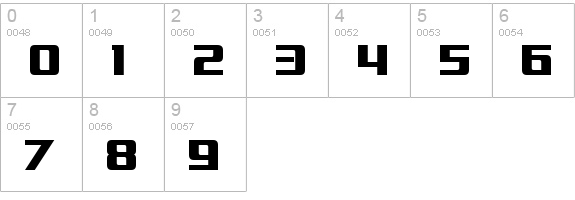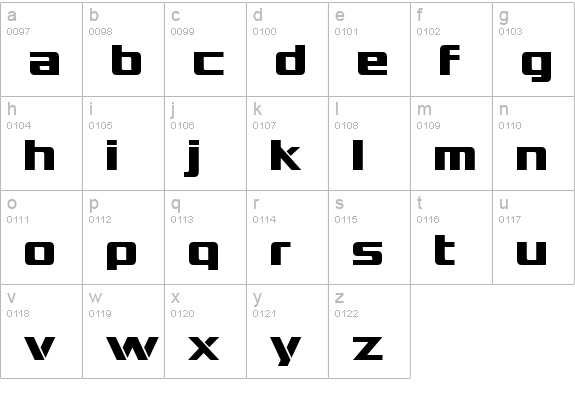
Interceptor Font Details
Introducing Interceptor, a captivating and versatile font that is sure to make a statement in your design projects. With its sleek and modern lines, Interceptor exudes a sense of sophistication and professionalism that will elevate any creative endeavor. This font is perfect for branding, logos, packaging, headlines, and more. What makes Interceptor even more appealing is that it is freely available to download at FontsMarket.com. Now, you can unleash your creativity without any boundaries or constraints. Whether you are a professional designer or a passionate hobbyist, Interceptor empowers you to bring your visions to life, without the worry of licensing fees or restrictions. Crafted with meticulous attention to detail, Interceptor offers a wide range of characters and styles to suit any project. From bold and impactful to delicate and elegant, this font seamlessly adapts to your needs, allowing you to experiment and push the boundaries of typography. With Interceptor, your designs will stand out from the crowd, leaving a lasting impression on your audience. Its clean and legible appearance ensures maximum readability, making it a perfect choice for both digital and print media. Whether you are designing a website, a magazine spread, or a social media post, Interceptor will effortlessly enhance your content and convey your message with clarity and style. So, why wait? Embrace the freedom of creativity and download Interceptor today, exclusively at FontsMarket.com. Join a community of designers who appreciate the value of a high-quality, freely available font. With Interceptor, you have the power to create visually stunning designs that captivate and inspire. Let your imagination run wild and unlock the full potential of your projects with Interceptor – the font that sets you free.